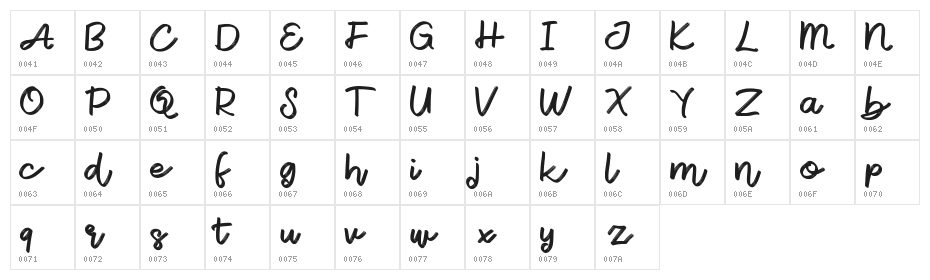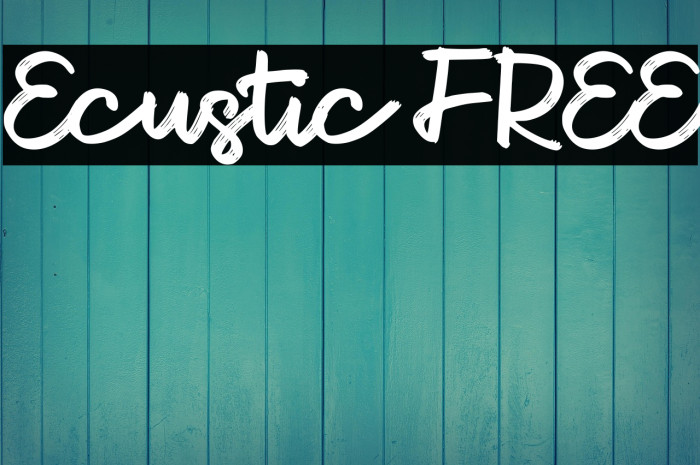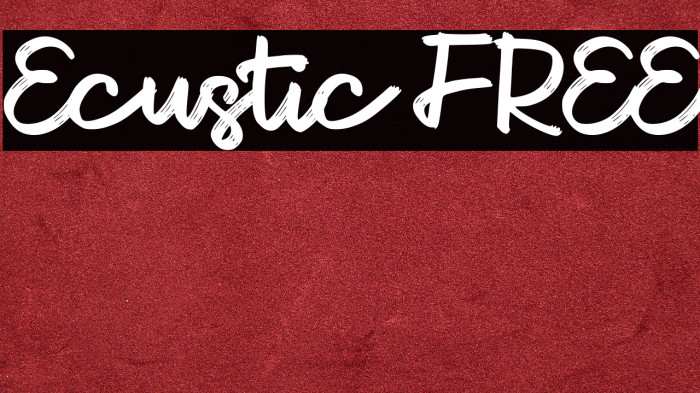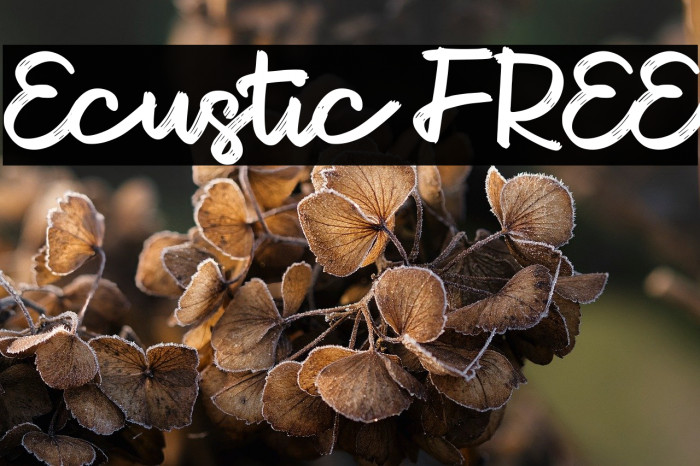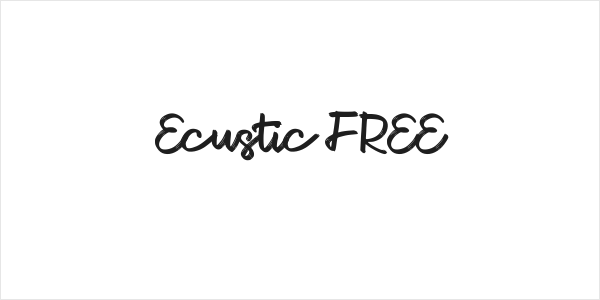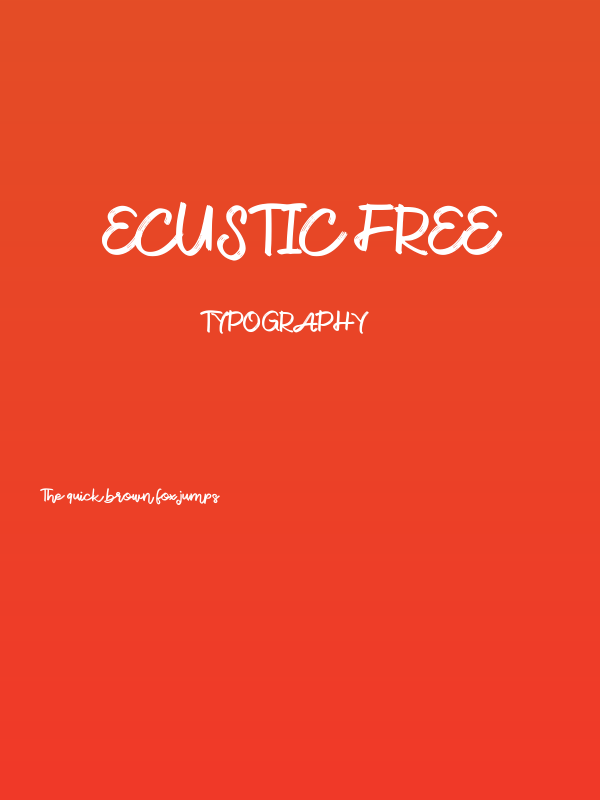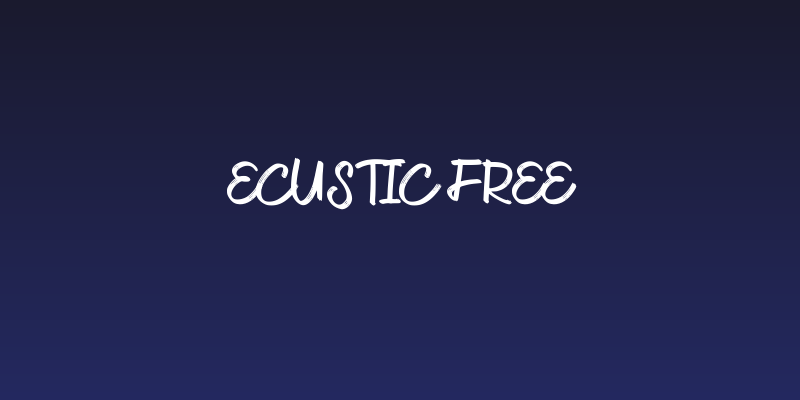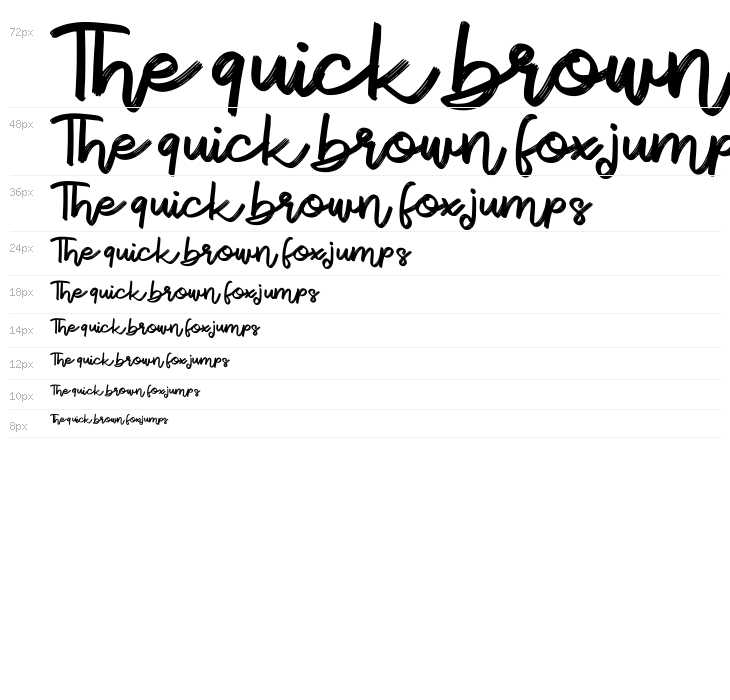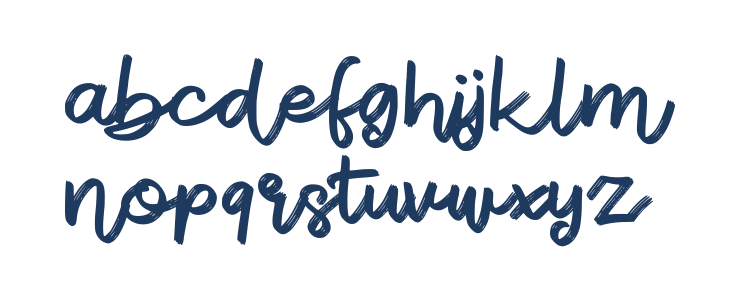
Ecustic FREE Font
Ecustic FREE Description
This font features a bold, handwritten style with a playful and energetic character. The letters are interconnected, giving it a fluid and dynamic appearance. The strokes are thick and consistent, providing a strong visual impact. The uppercase and lowercase letters maintain a cohesive look, with slight variations that add to the font's charm. The numbers and special characters are crafted with the same attention to detail, ensuring uniformity across all glyphs. This font is well-suited for projects that require a personal touch or a casual, friendly vibe.
| Proposed Projects | Ideal for greeting cards, invitations, branding, and social media graphics. |